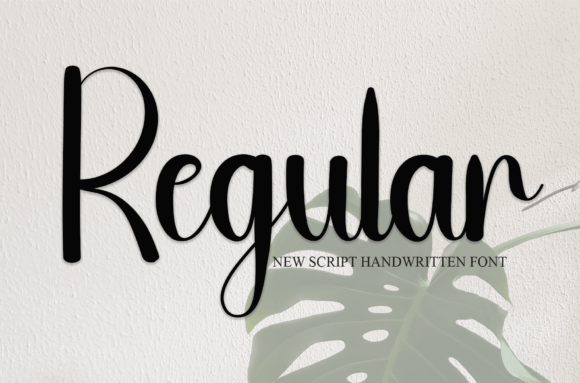
Are you looking for the perfect font for your game design project? Look no further than Regular Font! Created by William Jhordy, this script font is both sweet and friendly, making it the ideal choice for a wide range of design projects.
With its fresh and neat appearance, Regular Font is perfect for adding a touch of fun to your wedding invitations, cards, and other designs. This handwritten font is sure to make your designs stand out and capture the attention of your audience.
Whether you're a seasoned designer or just starting out, Regular Font is the perfect choice for any project that needs a little extra flair. With its captivating and emotional feel, this font is sure to bring your designs to life and leave a lasting impression on your audience.